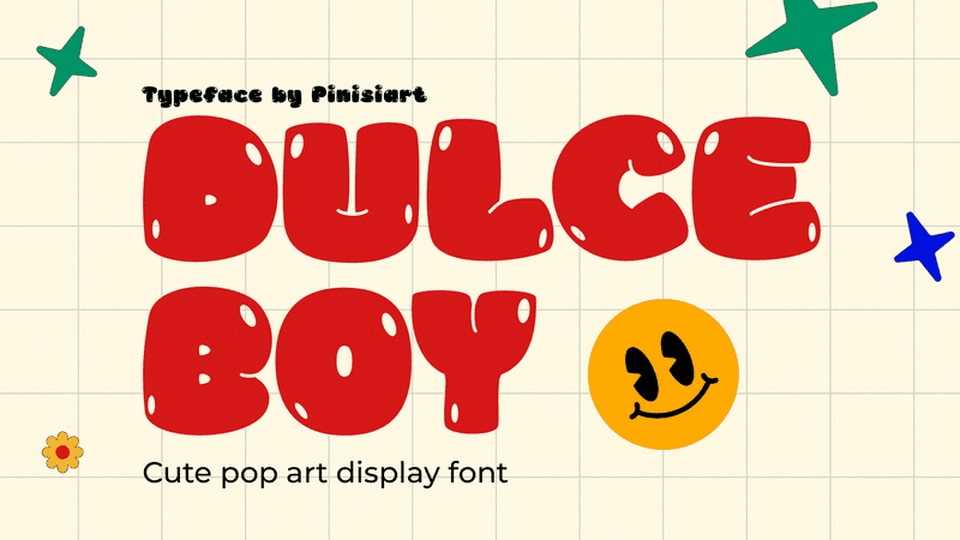
Download Dulce Boy font, a cute Pop Art display typeface. Cute, fun, and giving a huge impact on the projects you’re working on. Dulce Boy is rocking the pop art style in its own way.